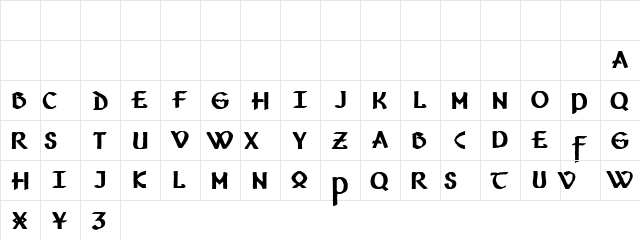
Vafthrudnir Demo Regular Font Preview
Vafthrudnir Demo Regular
Design Context for Vafthrudnir Demo Typeface
Vafthrudnir Demo is a composed and adaptable typeface that performs quietly and consistently across a wide range of design contexts.